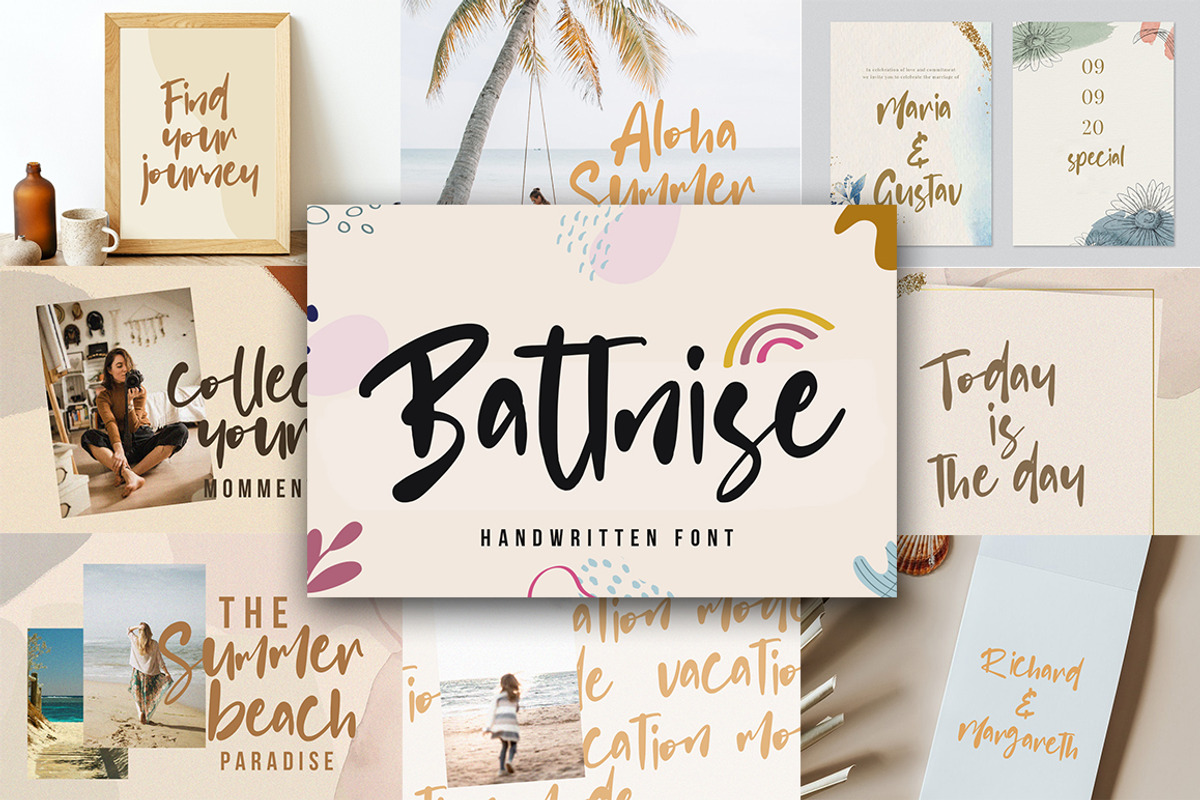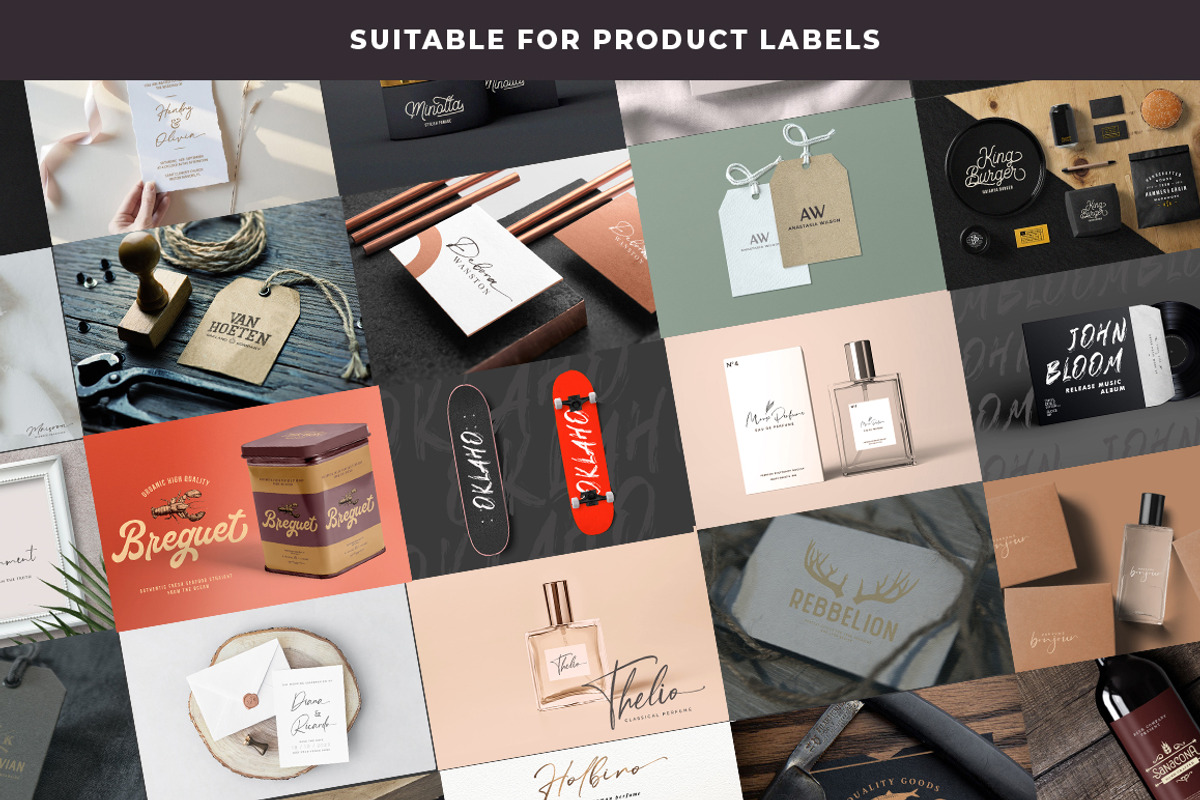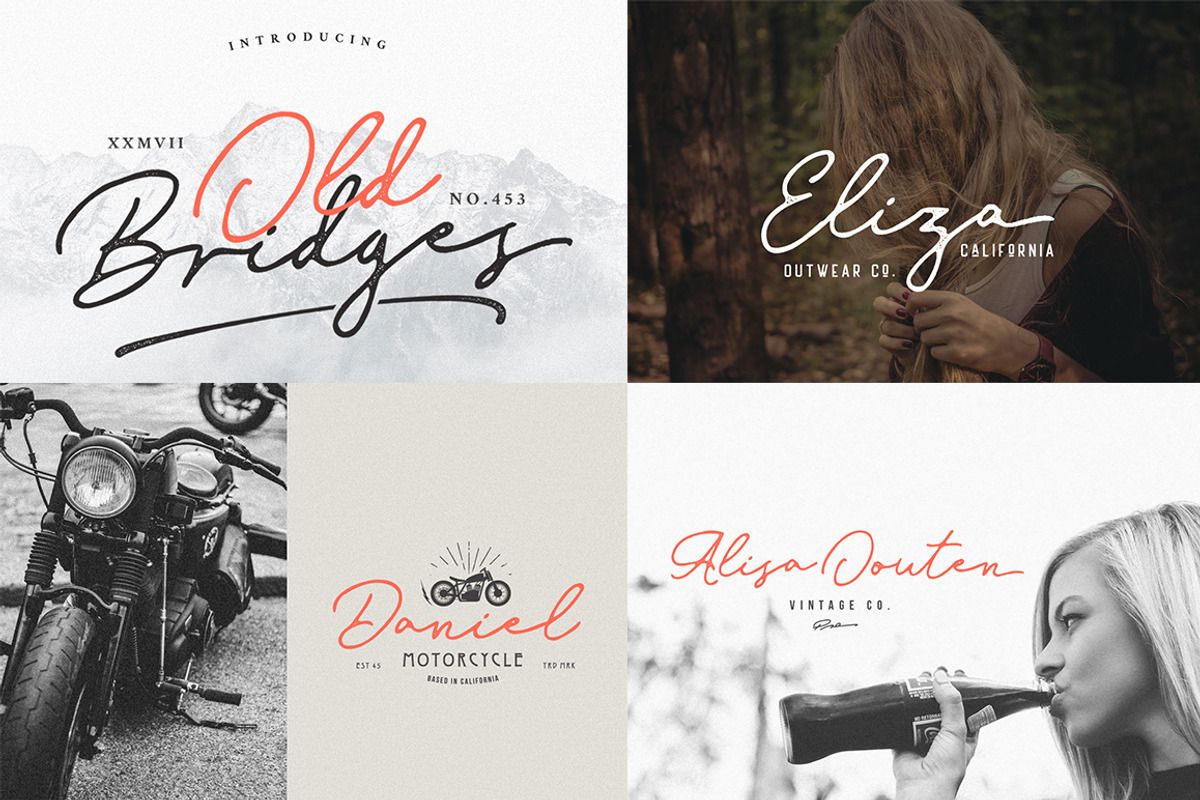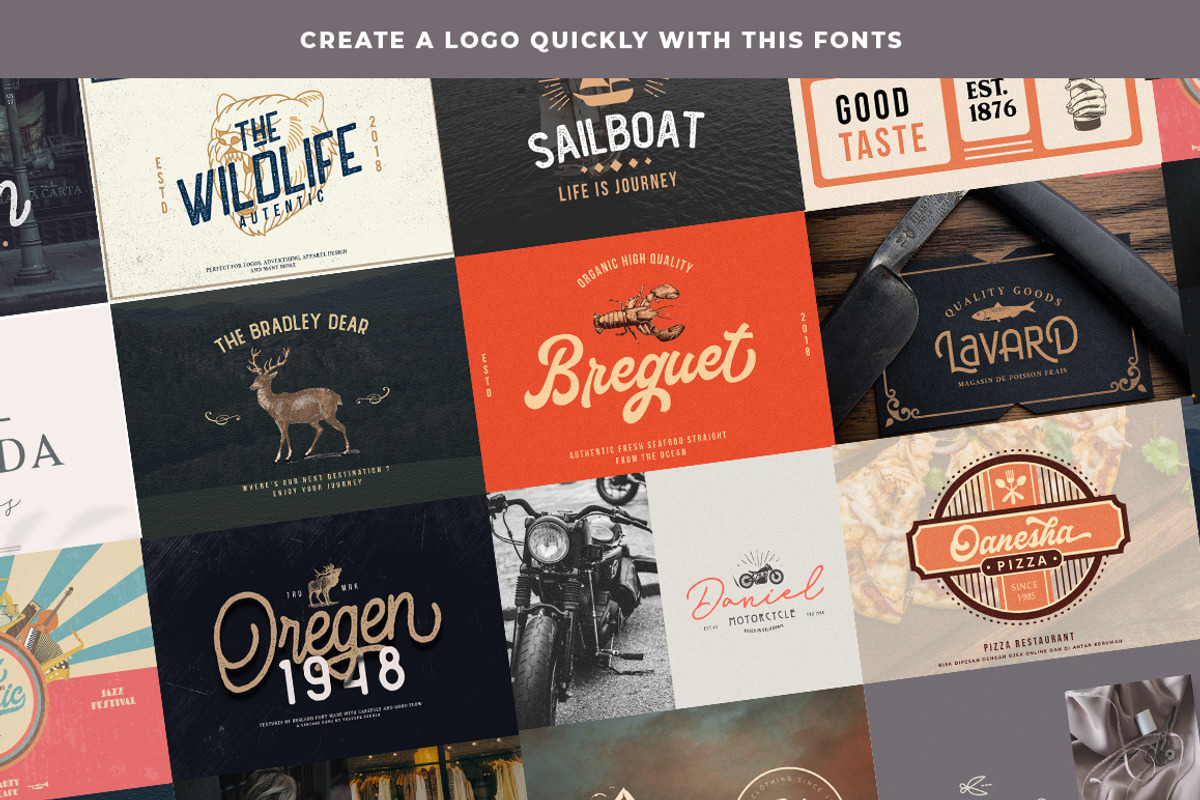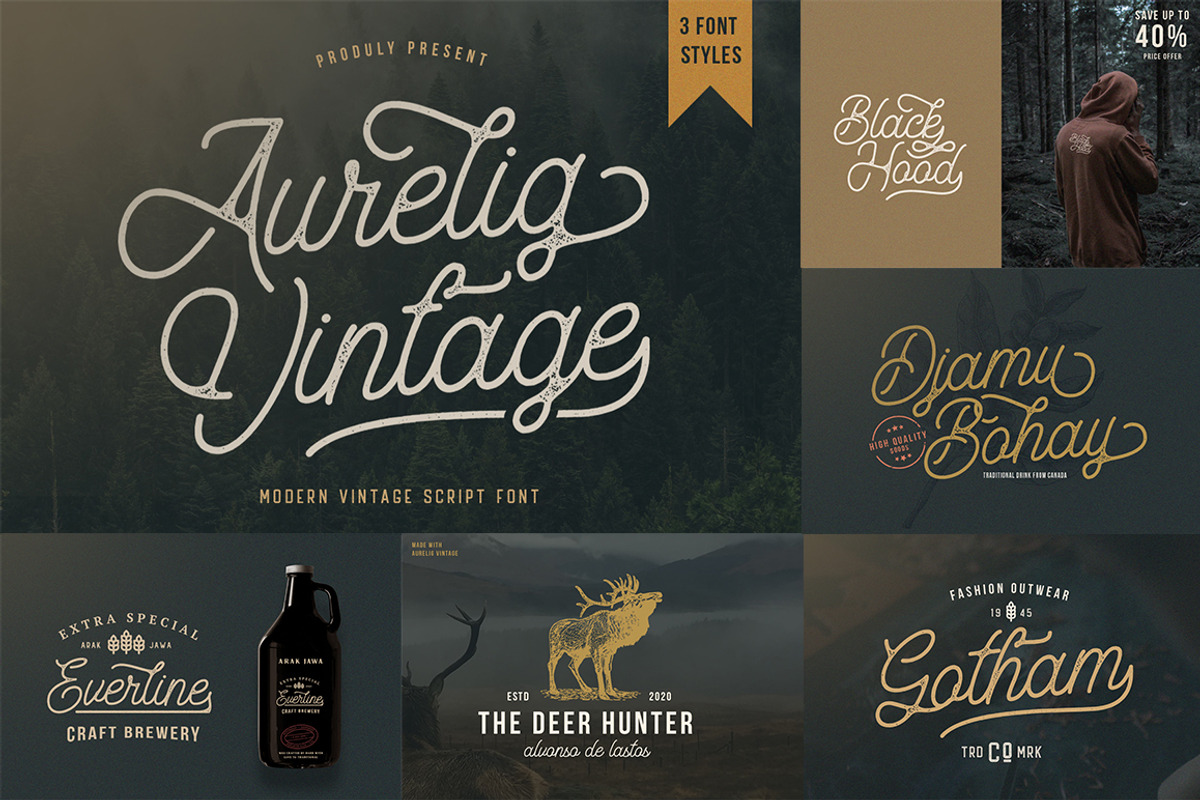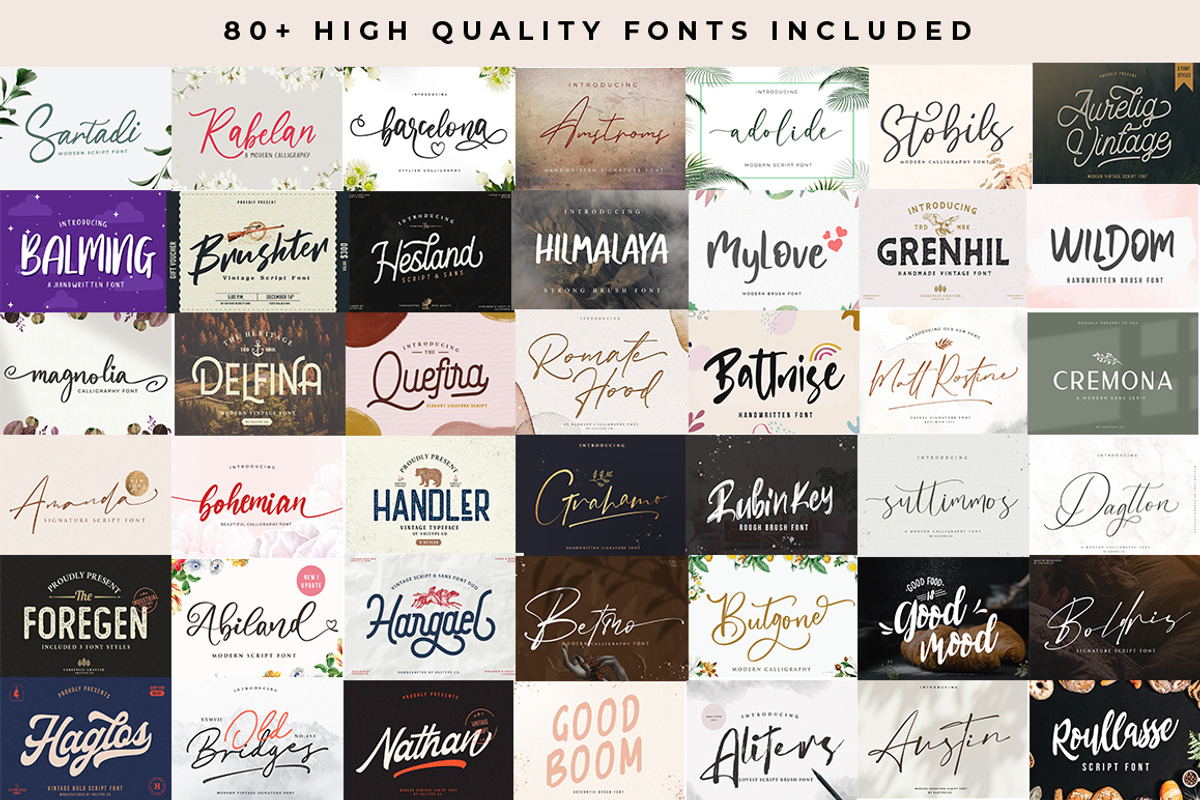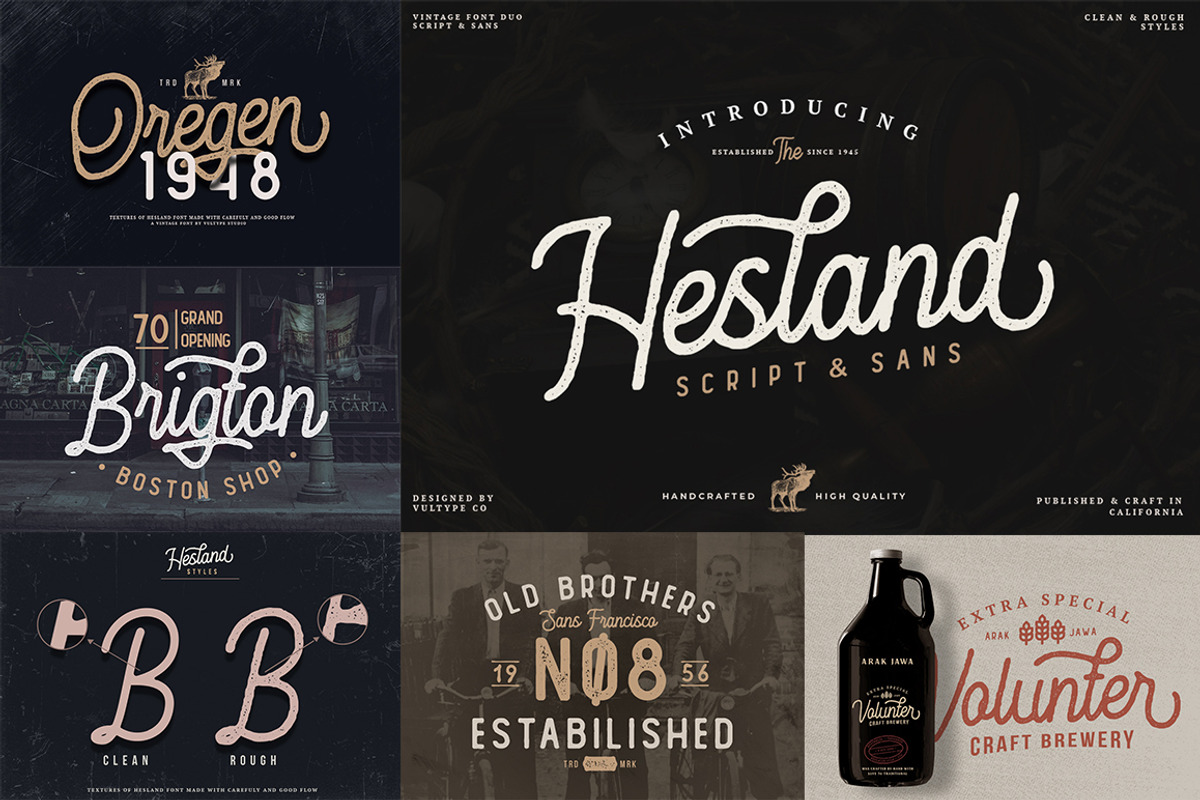
Font Bundle For Graphic Designers
let's welcome vintage font bundle with 80+ Fonts in 23 Family Included Premade Logo Templates. there are sans serifs, scripts and handwritten and also displays that you can use on future projects
All characters have an imperfect shape that gives a natural look in design. It easily cooperating together and perfect for creating the traditional style Invites, planner stickers, fabric, cushions, blogs, branding, logos, weddings, scrapbooking, posters, packaging, nail art, etc
Hargael Vintage Script -
Aurelig Vintage Font -
Betmo Signature Font -